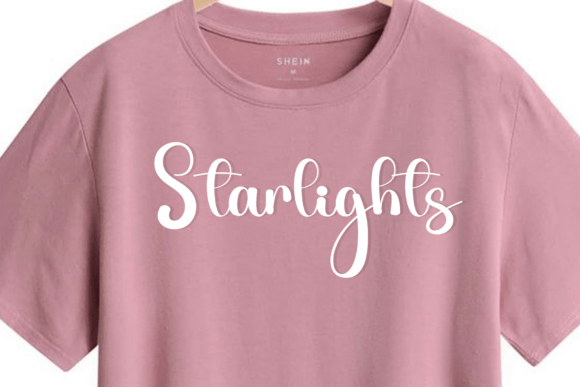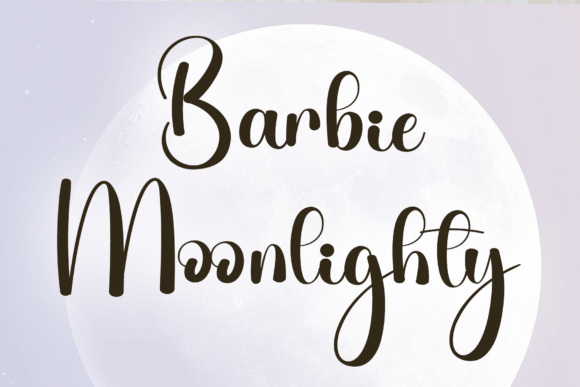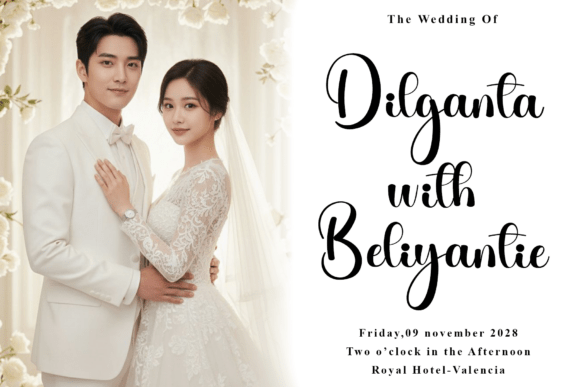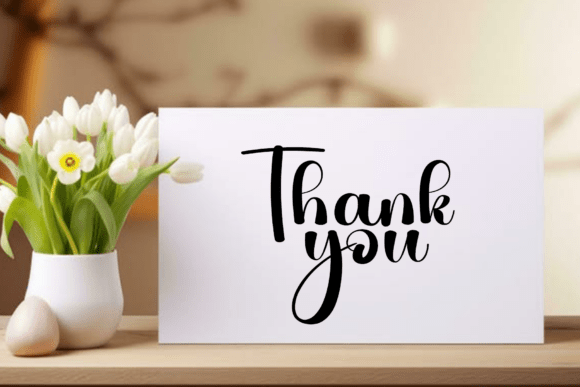
Kawai Friendship Font – Free Download
Introduction to Kawai Friendship Font
Kawai Friendship is a lovely and timeless handwritten font.
It is the best choice for creating eye-catching logos, branding, and quotes Every letter has a unique and beautiful touch, which will make your design come alive.
Key Features of Kawai Friendship Font
Why Choose Kawai Friendship Font?
Kawai Friendship Font offers exceptional quality and versatility, making it a valuable addition to your design toolkit. Whether you’re creating for personal projects or commercial use, Kawai Friendship Font delivers professional results.